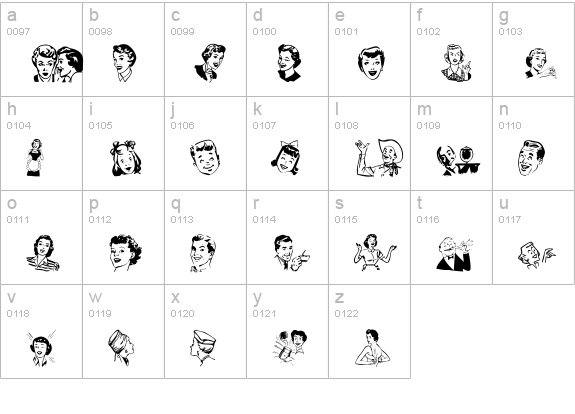
Retro Bats One Font Details
Introducing Retro Bats One, a captivating font that takes you back to the nostalgic era of vintage designs. With its charming and whimsical appearance, this font is sure to add a touch of retro flair to any project. Retro Bats One features unique and intricate characters that exude the essence of yesteryear. Each letter is carefully crafted with attention to detail, providing a truly authentic vintage feel. From the delicate curves to the bold lines, every aspect of this font is designed to transport you into a world of timeless elegance. But what makes Retro Bats One even more remarkable is that it is available for free! Yes, you read that right. This remarkable font is freely available to download at FontsMarket.com. Now, you can effortlessly incorporate the charm of the past into your designs without breaking the bank. Whether you're working on a retro-inspired logo, a vintage-themed poster, or a nostalgic website, Retro Bats One is the perfect choice to capture the essence of classic design. Its versatility allows it to seamlessly blend into various creative projects, giving your work an instant touch of nostalgia and sophistication. Don't miss out on this incredible opportunity to enhance your designs with Retro Bats One. Download it for free at FontsMarket.com and embark on a journey to a bygone era. Rediscover the beauty of vintage aesthetics and let your creativity flourish with this timeless font.